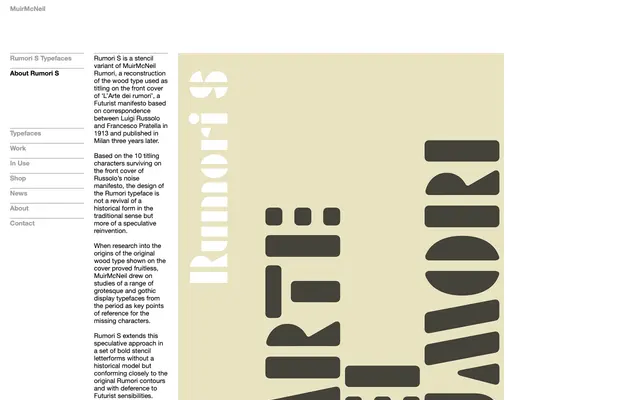
Rumori S Typefaces
A bold stencil display face speculatively reconstructed from the wood type used on the cover of Luigi Russolo's 1913 Futurist noise manifesto.
Derived from the ten surviving titling characters on the cover of Russolo's 'L'Arte dei rumori', the design fills in the missing glyphs by drawing on grotesque and gothic display typefaces of the period rather than reviving a single historical source. The stencil variant applies that same speculative method without a direct historical model, conforming closely to the original Rumori contours while drawing on early modernist alphabets built from minimal, redistributable components. The result sits between historical reconstruction and original design, shaped by Futurist sensibility and early-twentieth-century geometric thinking.
A bold stencil display face derived from early twentieth-century grotesque and gothic display wood type, referencing Futurist design sensibilities and modernist modular alphabet experiments.